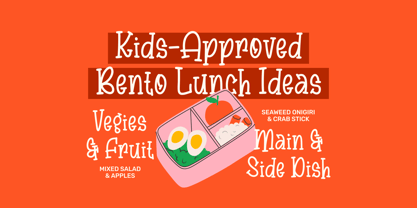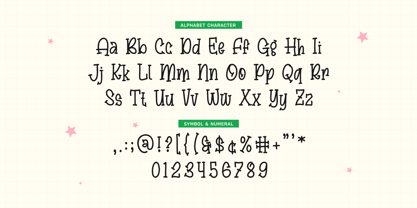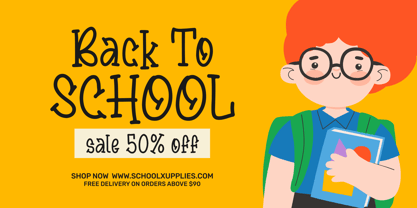
Magout
by Imoodev
The Magout Font Family was designed by Aulia Savira Putri and published by Imoodev. Magout contains 1 styles.
Introducing Magout, a delightfully playful and chunky font that's bursting with friendly personality! This typeface is designed to bring a touch of childlike joy and charming authenticity to your projects. The letterforms are characterized by their thick, substantial strokes and softly rounded edges, giving them an approachable and gentle feel. Each character has a subtle, organic wobble, creating a genuine hand drawn look as if written with a fun, bold marker. This is a perfect display font for projects that need to feel fun, happy, and kid-approved. Its quirky nature makes it incredibly memorable and lovable. Perfect for children's book covers, classroom materials, educational resources, branding for kids' products, fun social media graphics, birthday party invitations, cheerful quotes, YouTube thumbnails, and any design that needs a dose of pure, unadulterated fun!
Designers: Aulia Savira Putri
Publisher: Imoodev
Foundry: Imoodev
Design Owner: Imoodev